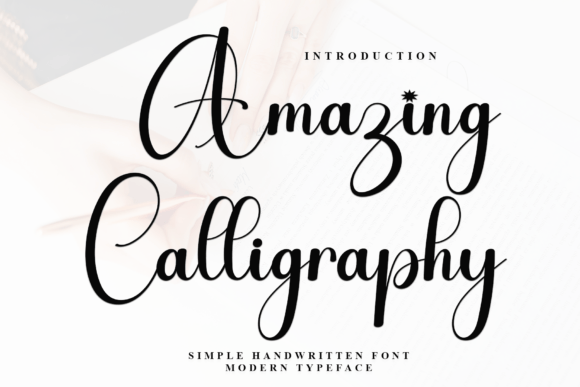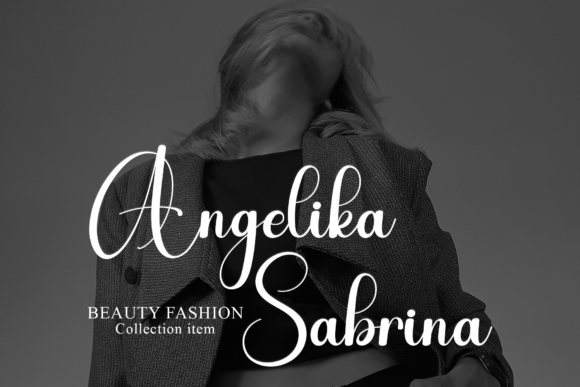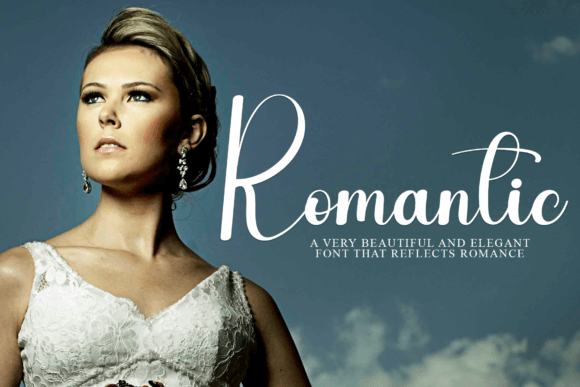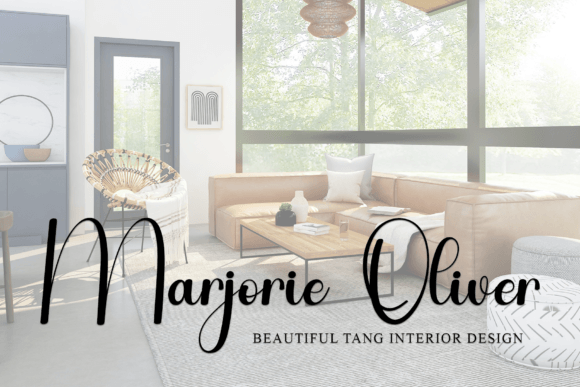
Amazing Calligraphy Font
About the Amazing Calligraphy Font
Introducing the Amazing Calligraphy Font, a beautifully crafted typeface designed to elevate your creative projects. Amazing Calligraphy is a delicate, elegant, and flowing handwritten font. It has beautiful and well-balanced characters and as a result, it matches a wide pool of designs. Add it to your most creative ideas and notice how it makes them come alive!
Its elegant, flowing forms make it ideal for projects requiring a touch of refined sophistication. Consider using it for wedding invitations, luxury branding, or elegant stationery. It also works well in short headlines or quotes on posters and social media graphics where its delicate nature can add visual interest. However, avoid using it for body text or lengthy paragraphs; its intricate details can become difficult to read at smaller sizes.
Amazing Calligraphy Font pairs beautifully with clean sans-serif fonts like Montserrat or Lato for a balanced contrast. For a more traditional feel, consider pairing it with a classic serif like Garamond or Playfair Display. These pairings provide a strong visual counterpoint to the script’s delicate curves, enhancing readability and creating a sophisticated overall aesthetic.
The font’s core personality is undeniably elegant and refined, suggesting a brand identity focused on luxury, craftsmanship, or artistry. Its delicate nature conveys a sense of calm and sophistication, making it unsuitable for projects demanding bold statements or a modern, edgy aesthetic.
Amazing Calligraphy Font Usage Examples
Amazing Calligraphy Font Example